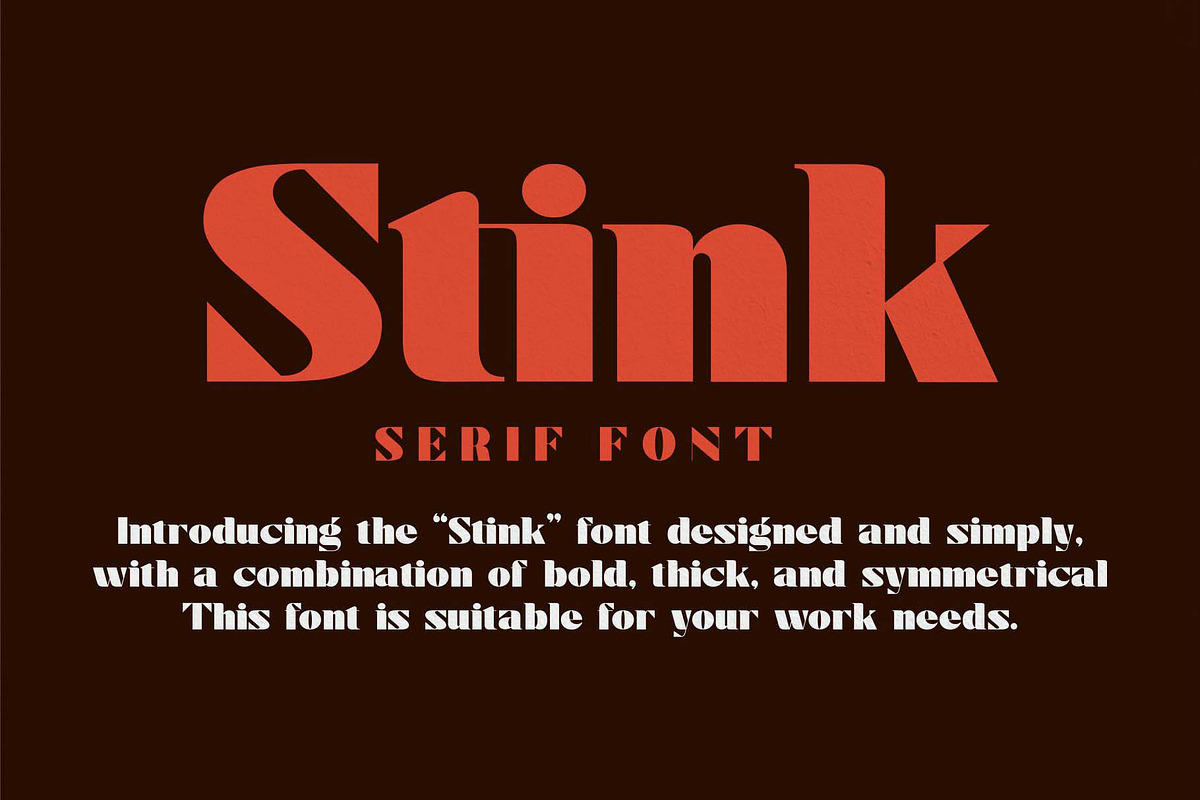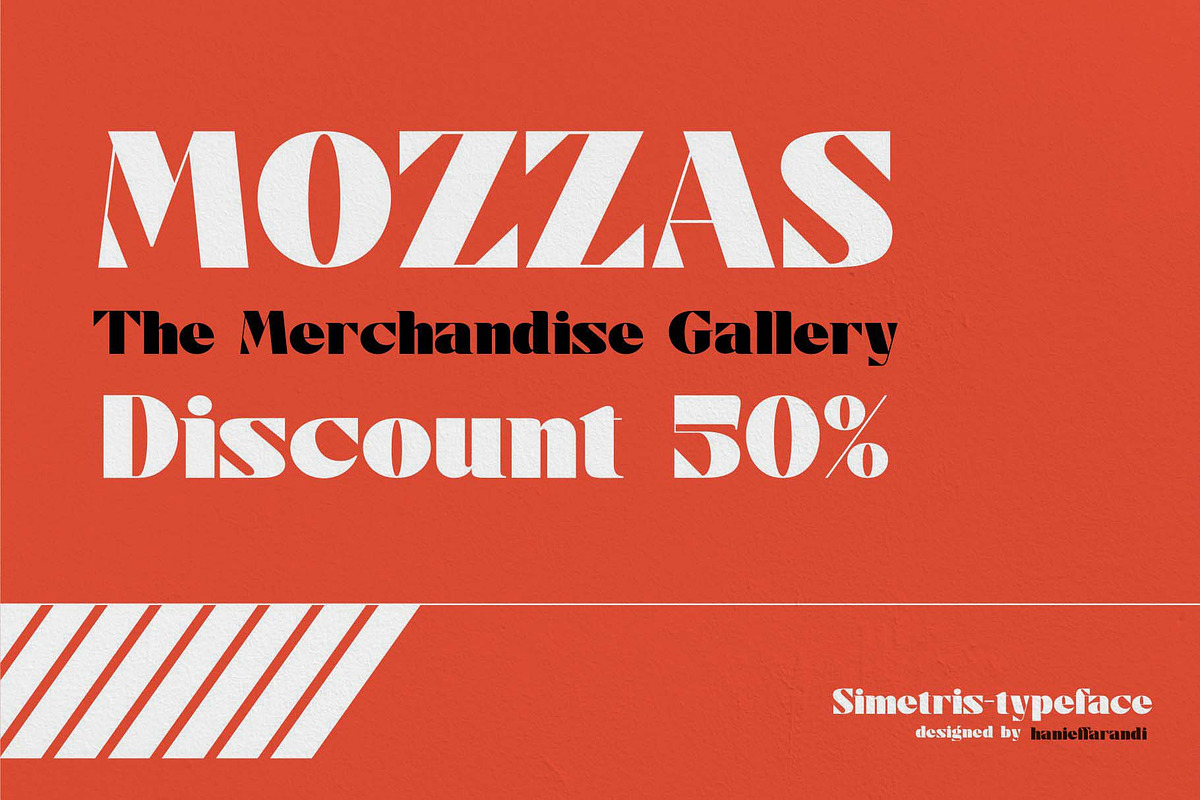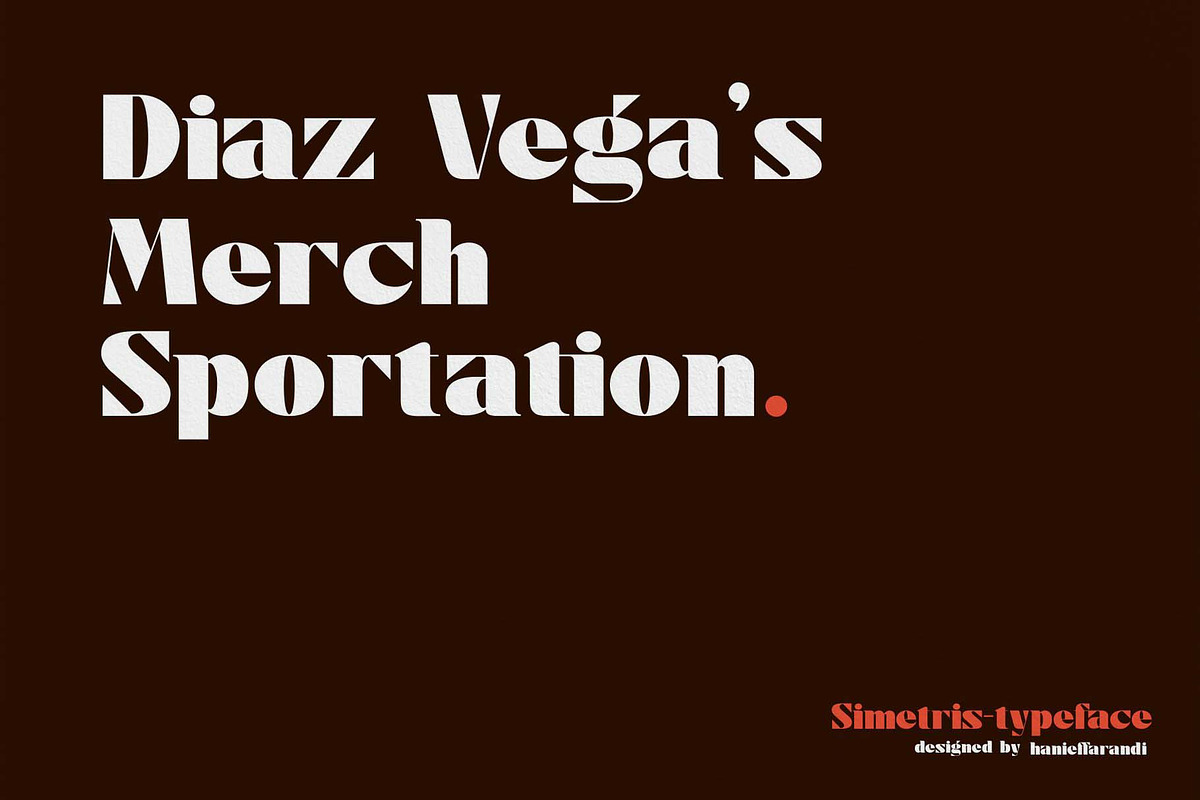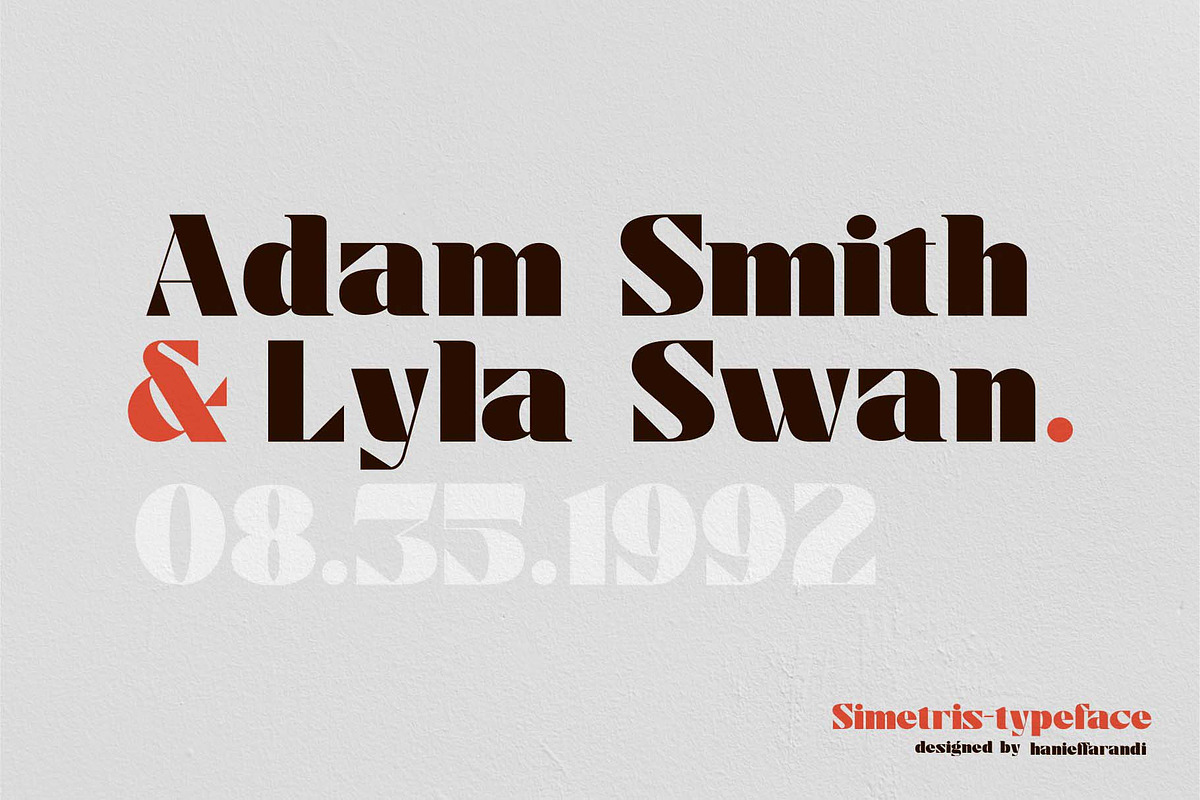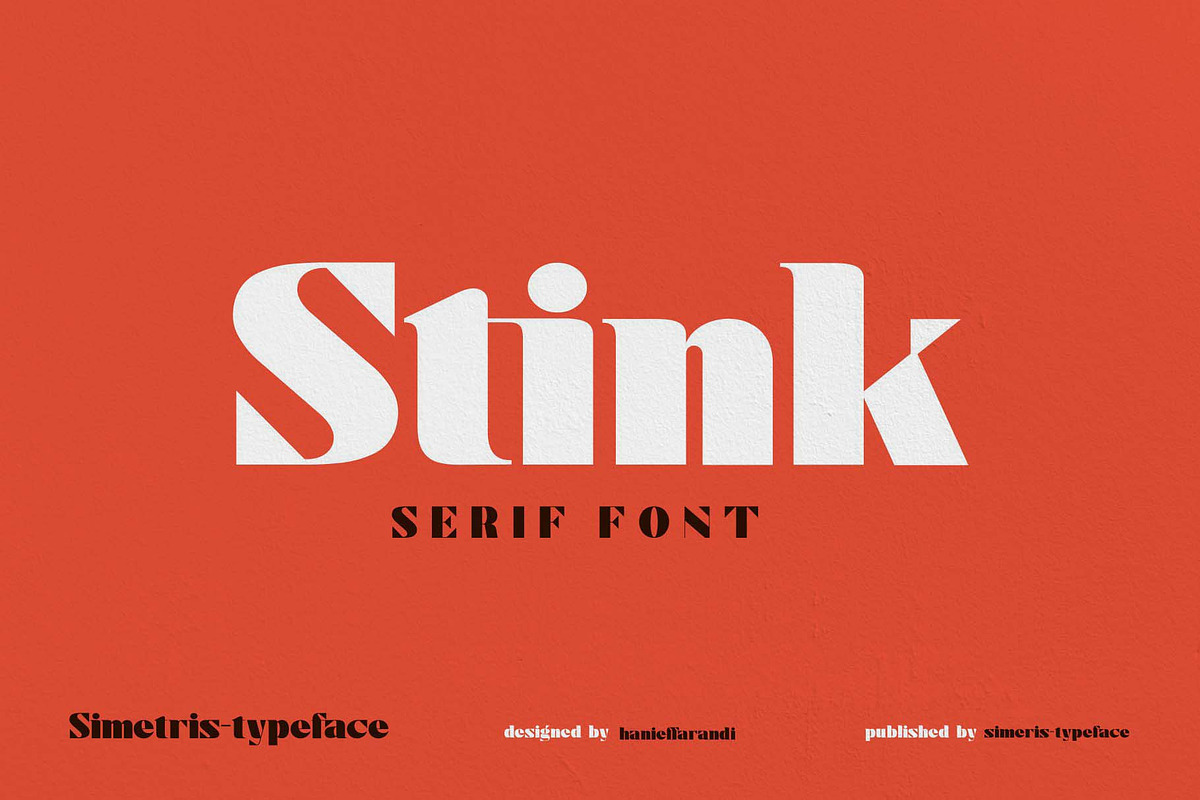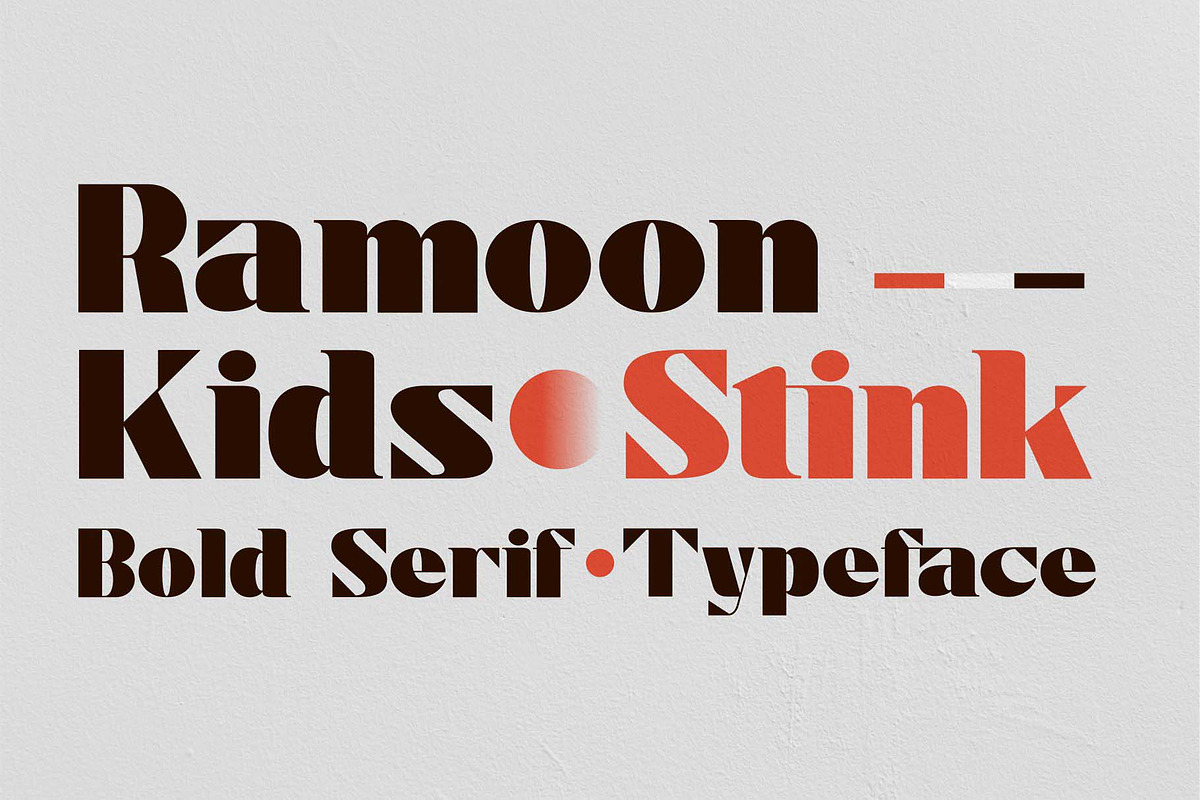
Stink / Bold Serif Font
Introducing the "Stink" font designed elegantly and simply, with a combination of bold, thick, and symmetrical. This font is suitable for your work needs.
Why Stink / Bold Serif Font is worth a look
Stink / Bold Serif Font by Kleffont Studio fits naturally into Branding, posters, packaging, typography.